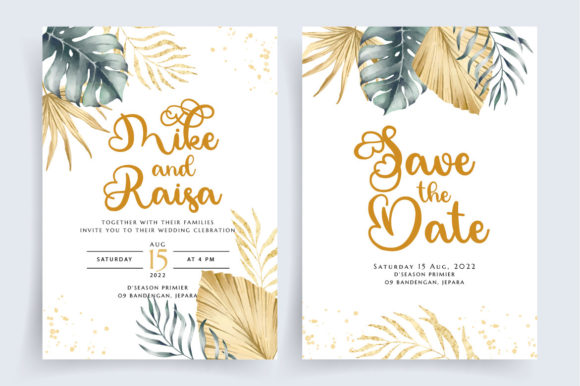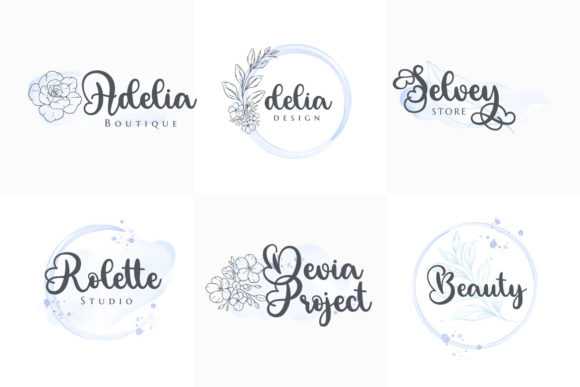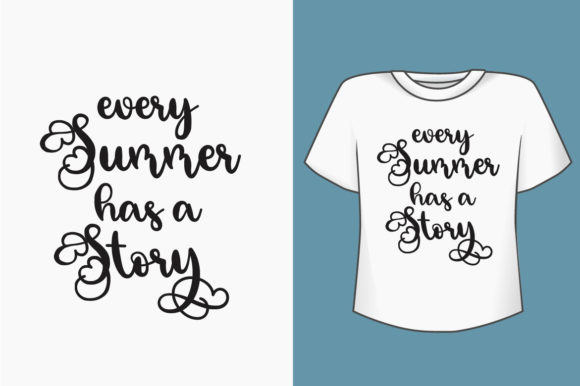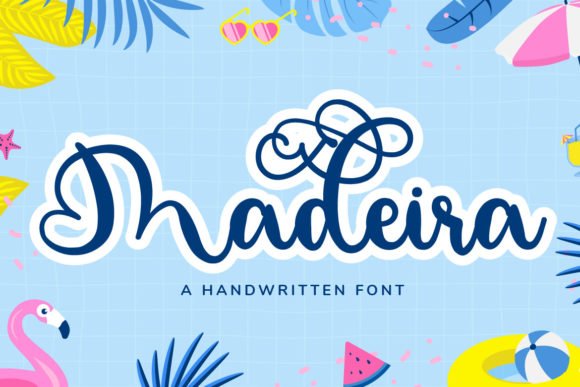
Introduction to Madeira Font
Madeira is a fashionable and highly detailed handwritten font.
Fall for its exquisite style and use it to create gorgeous wedding invitations, beautiful stationary art, eye-catching social media posts, and much more .
Why Choose Madeira Font?
Madeira Font offers exceptional quality and versatility, making it a valuable addition to your design toolkit. Whether you’re creating for personal projects or commercial use, Madeira Font delivers professional results.